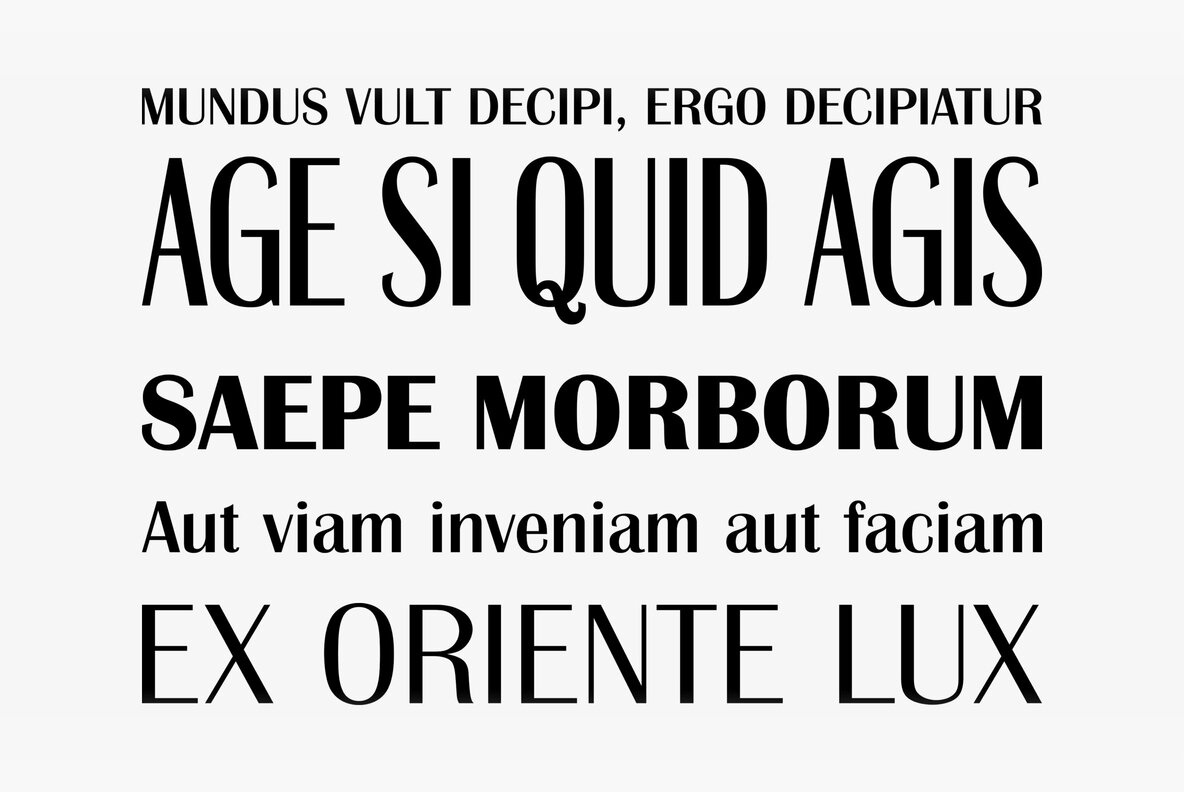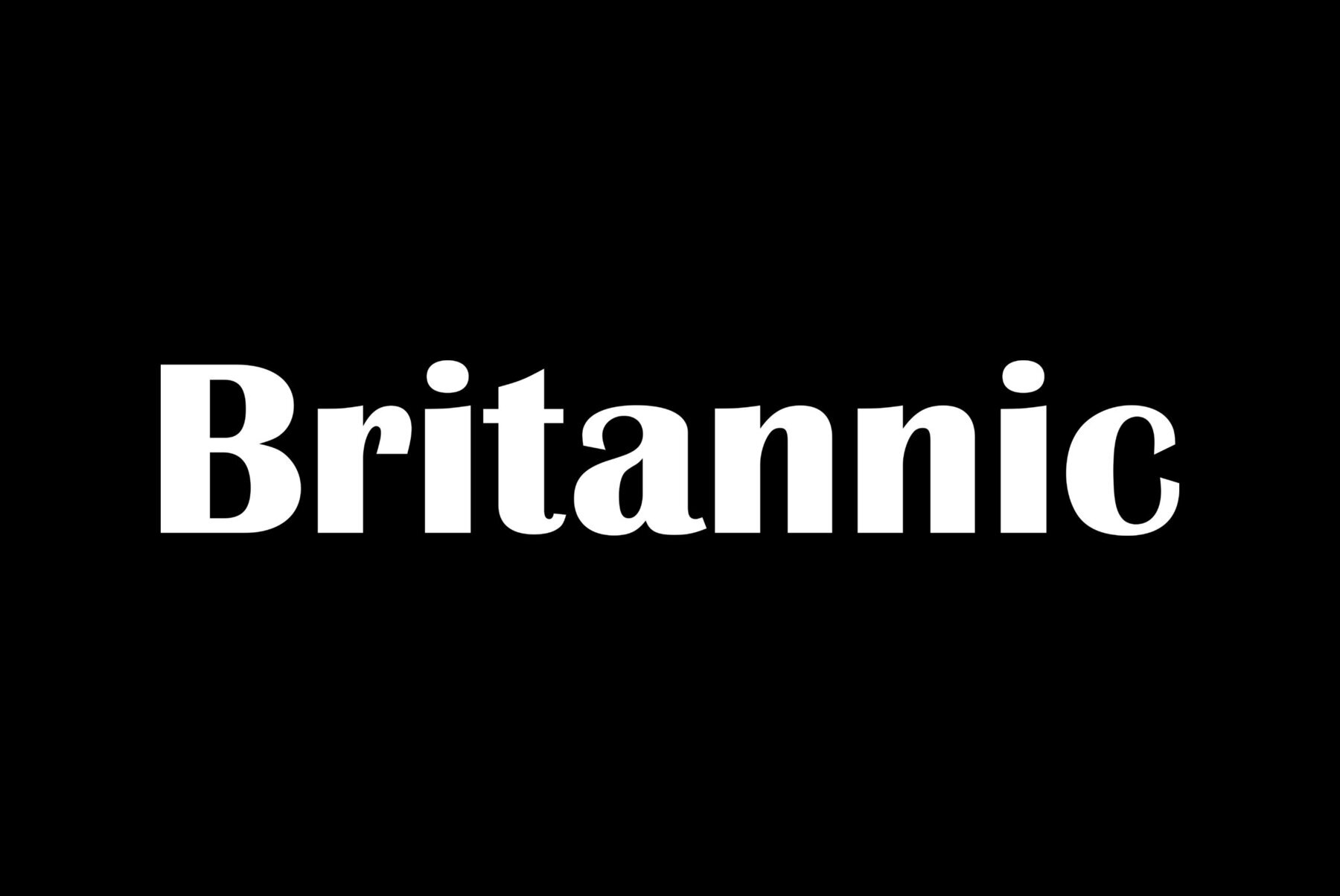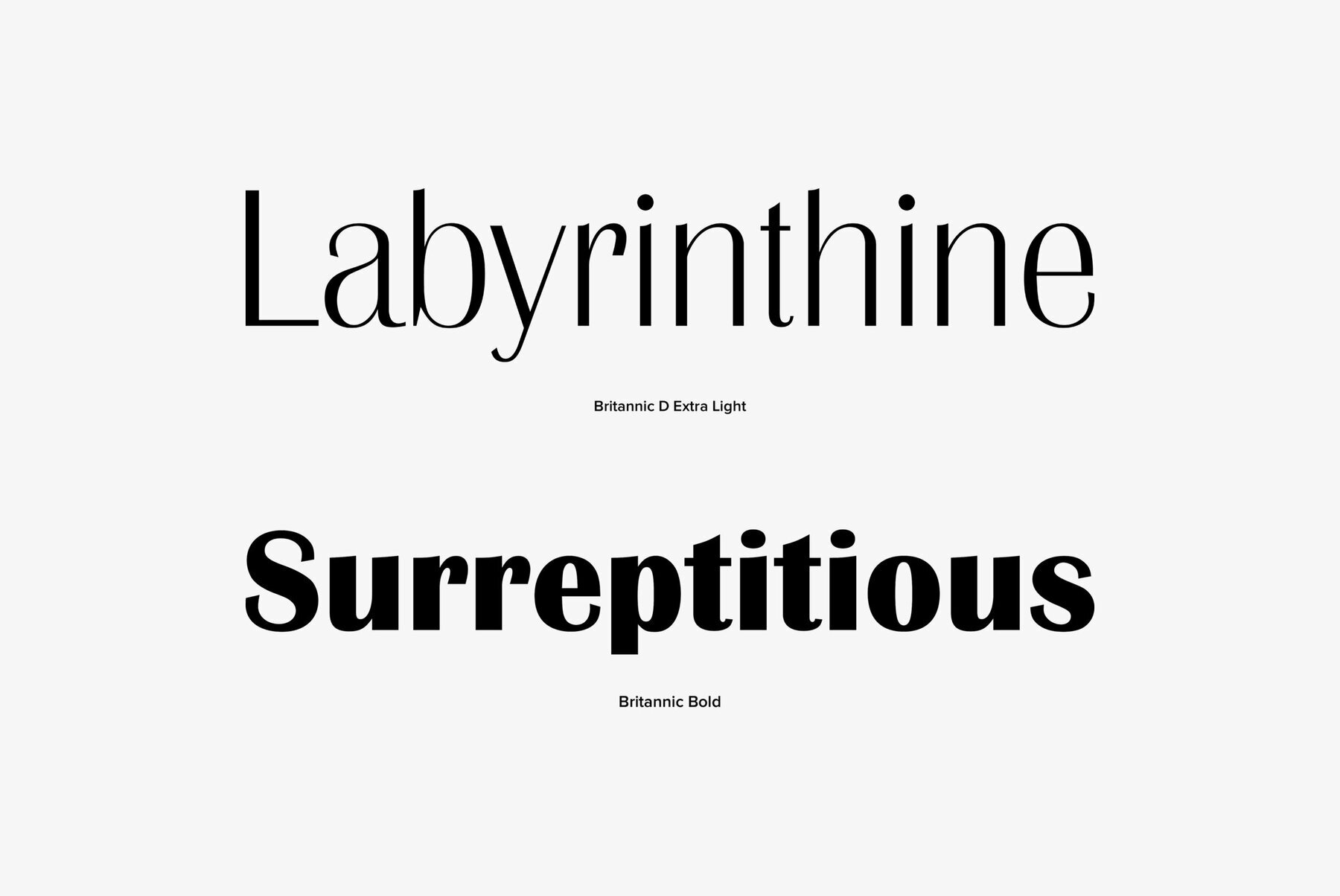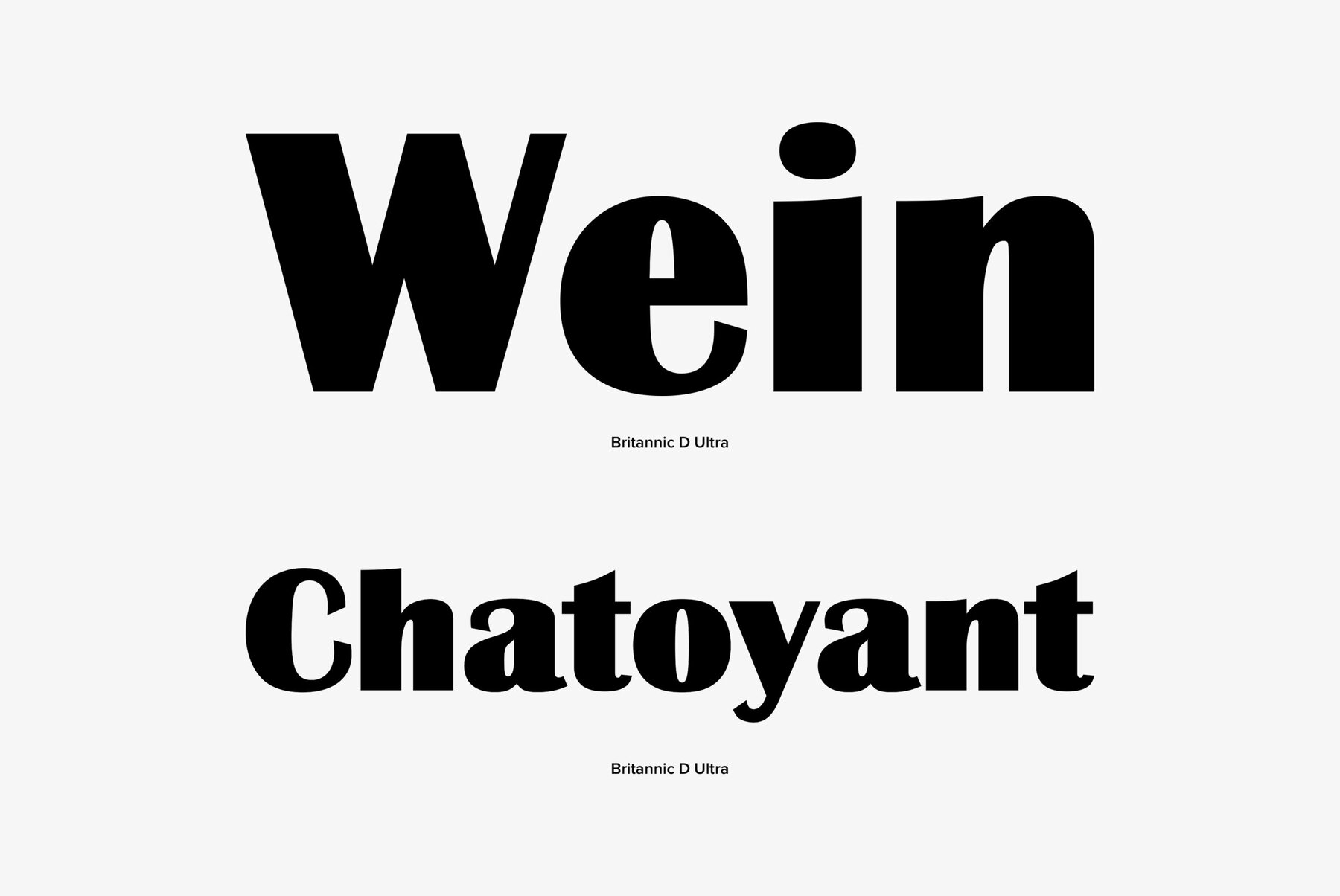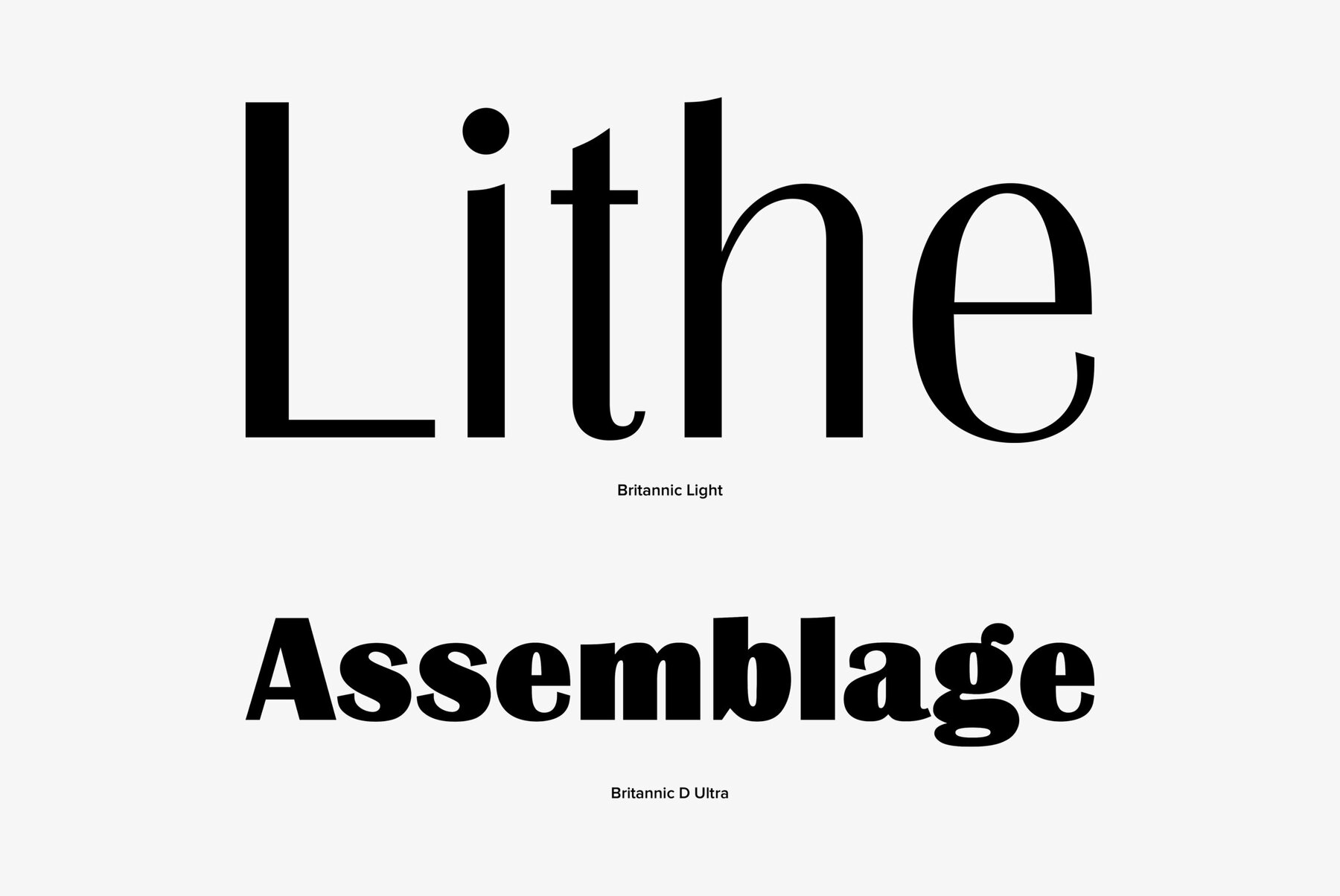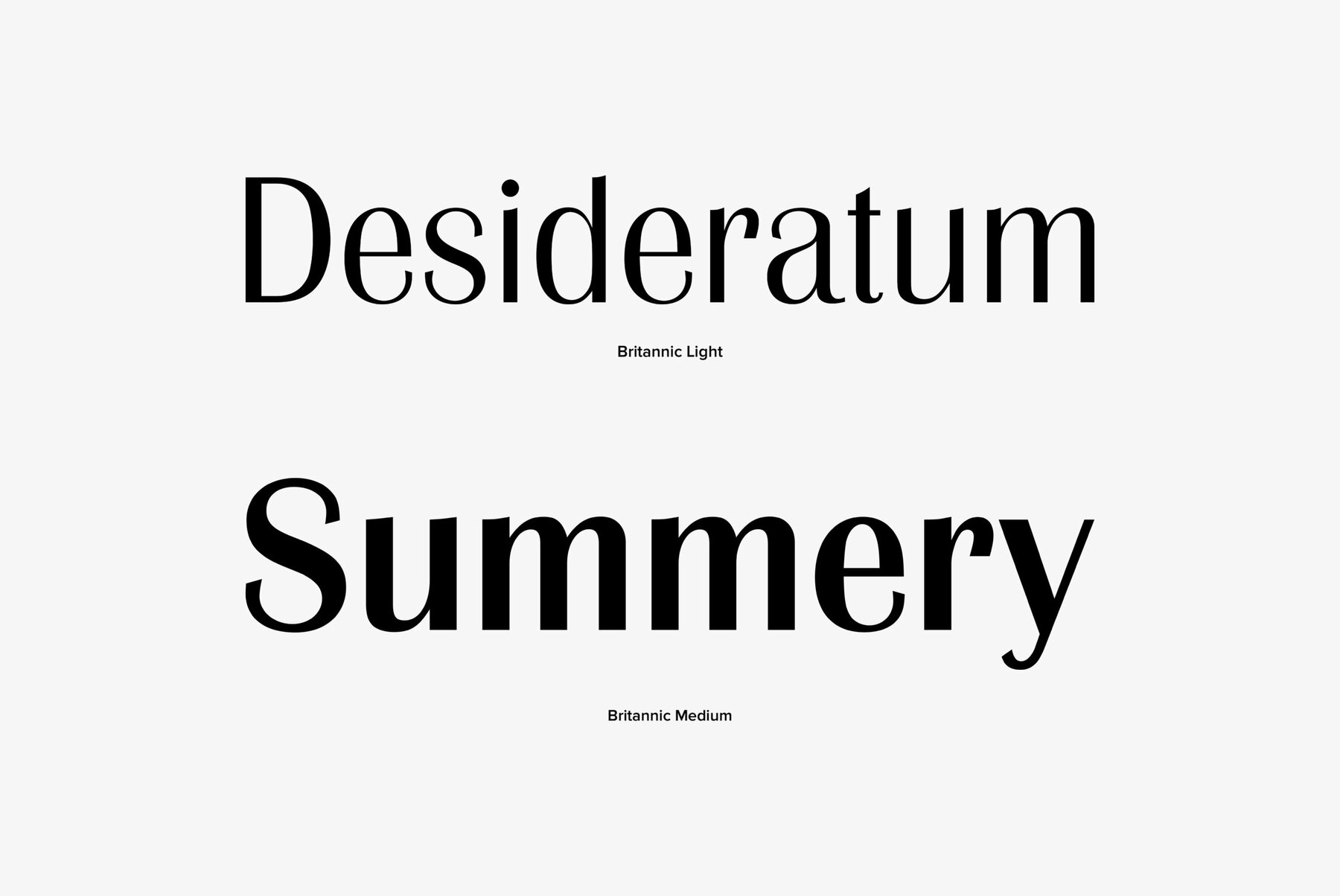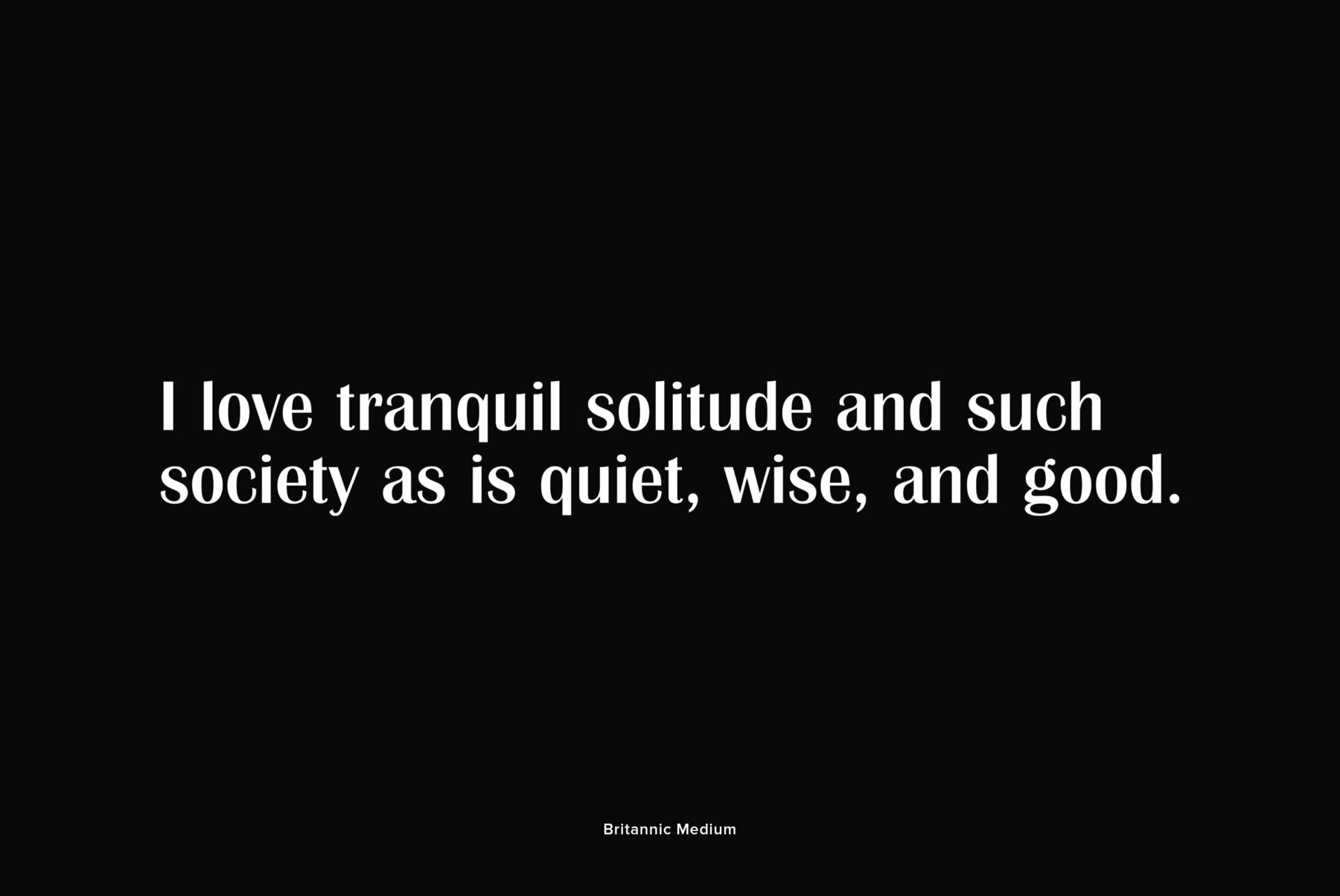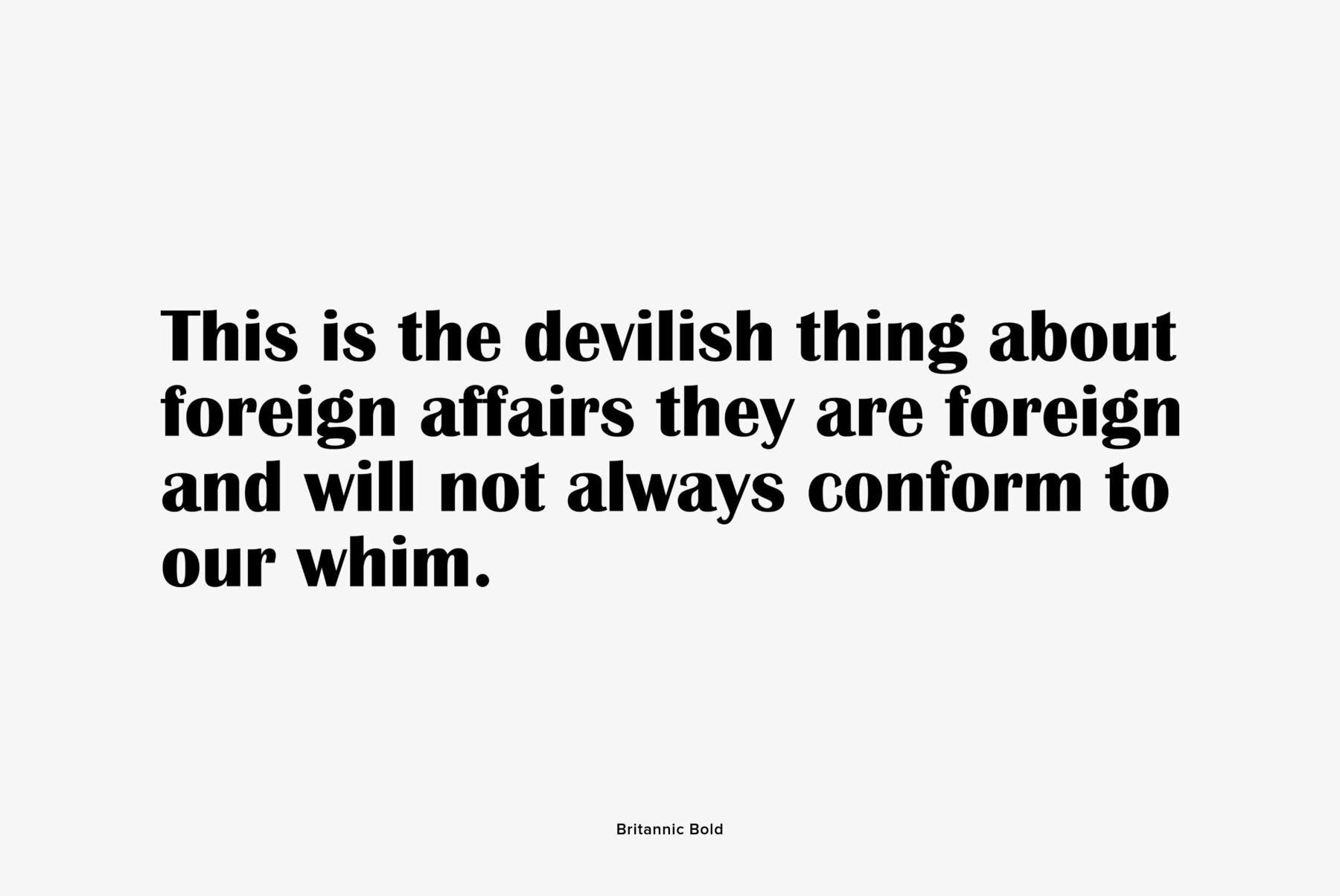
Britannic
Britannic is a retro and decorative sans originally designed by Stephenson Blake. The complete family contains 6 unique and very interesting type designs.